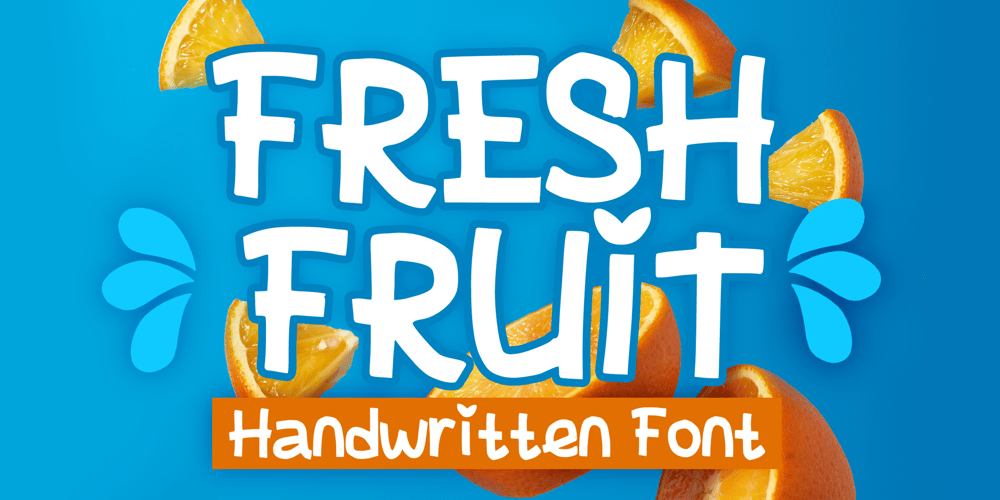
Fresh Fruit Font Family was designed by Gabriel Valentinus and published by Mvmet. Fresh Fruit contains 1 styles and family package options. Fresh Fruit is a display playful font that will be the perfect addition to any of your projects. You can use this font for many design ideas such as stickers, t-shirt designs, amazing logo designs, magazine or book covers, comics, cartoon drawings, and many more. Fall in love with its incredibly versatile style, and use it to create lovely designs!